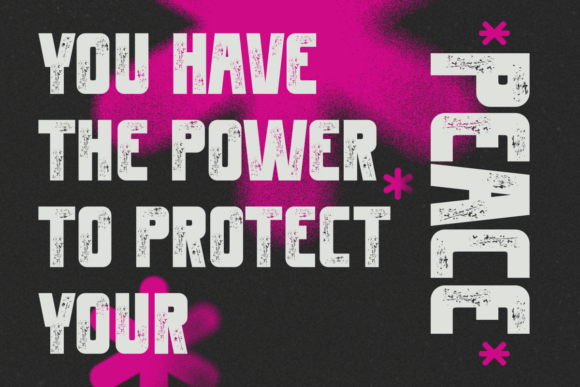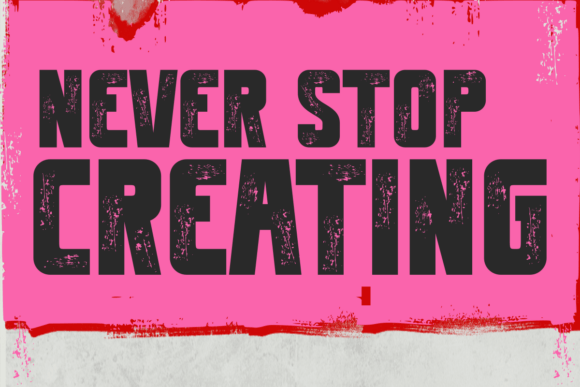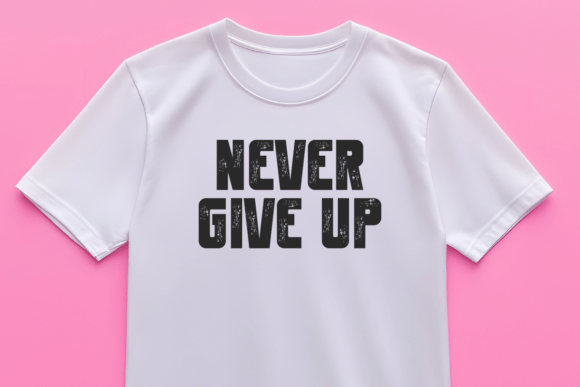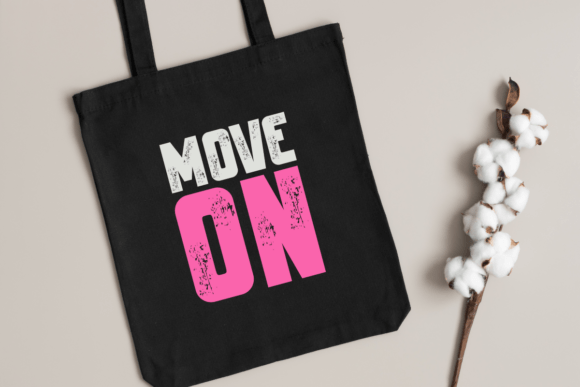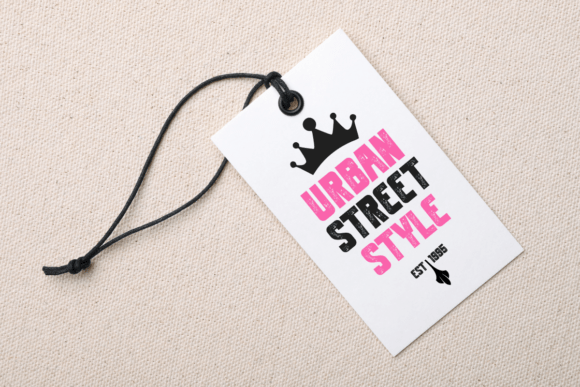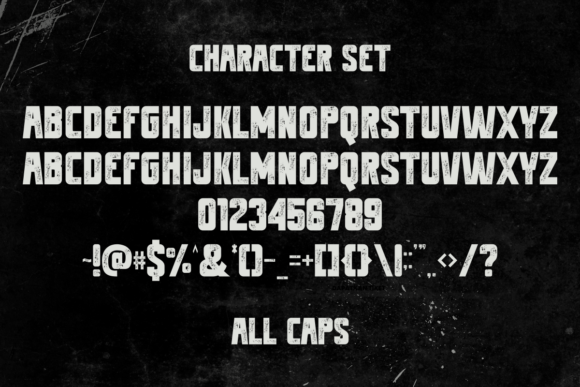
Introducing Chunky Grunge Regular Font: Unleash Your Designs with a Bold Statement
Are you looking for a font that exudes a raw, rugged personality and makes a strong visual impact? Look no further than the Chunky Grunge Regular Font. Inspired by street art, underground culture, and grunge aesthetics, this bold and distressed display font is perfect for designers and crafters who want to add an edgy touch to their work.
What is Chunky Grunge Regular Font?
Chunky Grunge Regular Font is a bold, all-caps display font that features heavy texture details, giving it a unique and rugged look. The font’s design is inspired by the raw energy of street art, the rebellious spirit of underground culture, and the grunge aesthetics of the 90s. With its distressed texture and bold letterforms, Chunky Grunge is perfect for designs that need a strong statement.
Key Features of Chunky Grunge Regular Font
- Bold and Distressed Design: Chunky Grunge features bold, all-caps letterforms with a distressed texture that gives it a raw, rugged look.
- Inspired by Street Art and Underground Culture: The font’s design is inspired by the raw energy of street art, the rebellious spirit of underground culture, and the grunge aesthetics of the 90s.
- Perfect for Display Designs: Chunky Grunge is perfect for display designs that need a strong visual impact, such as posters, album covers, streetwear branding, merchandise, and edgy social media graphics.
- Heavy Texture Details: The font features heavy texture details that give it a unique and rugged look.
Use Cases for Chunky Grunge Regular Font
Chunky Grunge Regular Font is perfect for a variety of design projects, including:
- Posters and Flyers: Use Chunky Grunge to create eye-catching posters and flyers that make a strong visual impact.
- Album Covers: Add an edgy touch to your album covers with Chunky Grunge’s bold and distressed design.
- Streetwear Branding: Use Chunky Grunge to create bold and eye-catching branding for your streetwear designs.
- Merchandise: Add a rugged touch to your merchandise designs with Chunky Grunge’s unique texture details.
- Social Media Graphics: Use Chunky Grunge to create edgy social media graphics that stand out from the crowd.
Why Choose Chunky Grunge Regular Font?
There are many reasons why you should choose Chunky Grunge Regular Font for your design projects. Here are a few:
- Unique and Bold Design: Chunky Grunge features a unique and bold design that makes a strong visual impact.
- High-Quality Texture Details: The font’s heavy texture details give it a rugged and raw look that is perfect for edgy designs.
- Easy to Read: Despite its bold and distressed design, Chunky Grunge is easy to read, even in large and small sizes.
- Versatile: Chunky Grunge can be used for a variety of design projects, from posters and album covers to streetwear branding and social media graphics.
How to Use Chunky Grunge Regular Font
Using Chunky Grunge Regular Font is easy. Here are a few tips:
- Use it as a Display Font: Chunky Grunge is perfect for display designs, such as posters, album covers, and streetwear branding.
- Experiment with Different Colors: Try out different colors and textures to give your designs a unique look.
- Pair it with Other Fonts: Chunky Grunge can be paired with other fonts to create a unique and interesting design.
In conclusion, Chunky Grunge Regular Font is a bold and distressed display font that is perfect for designers and crafters who want to add an edgy touch to their work. With its unique and rugged design, heavy texture details, and versatility, Chunky Grunge is a great choice for a variety of design projects. So why wait? Download Chunky Grunge Regular Font today and unleash your designs with a bold statement!